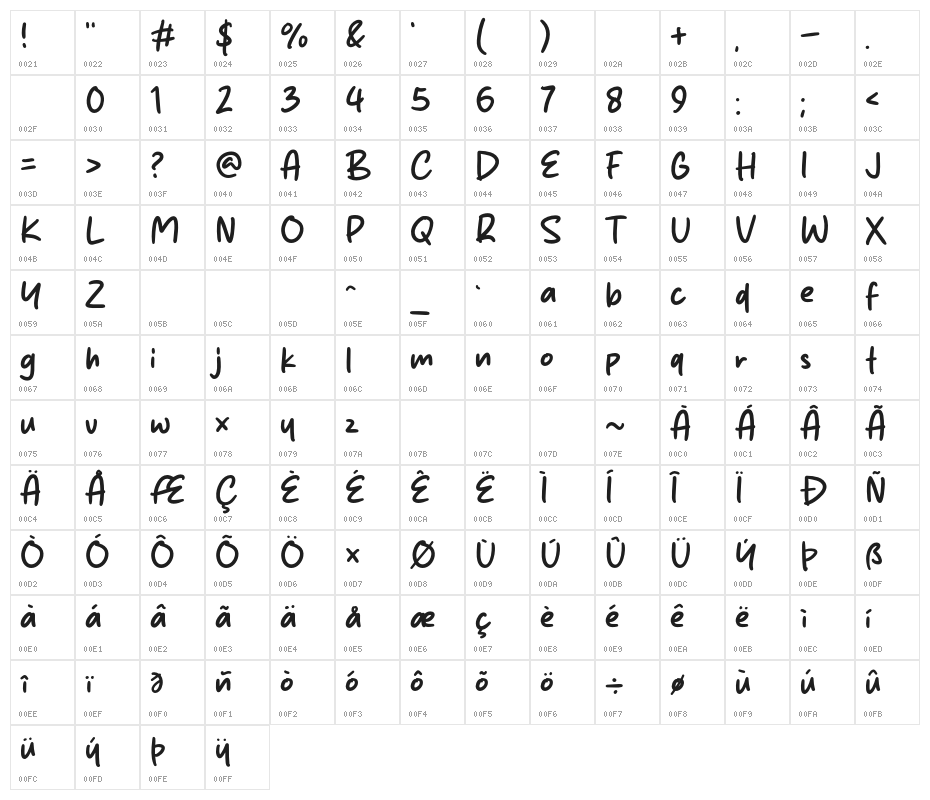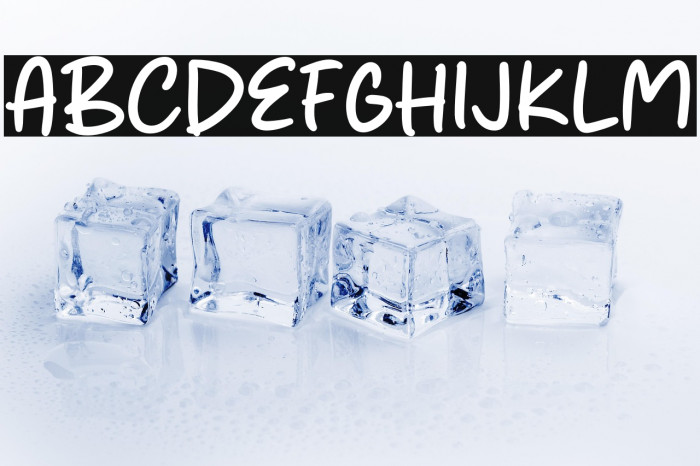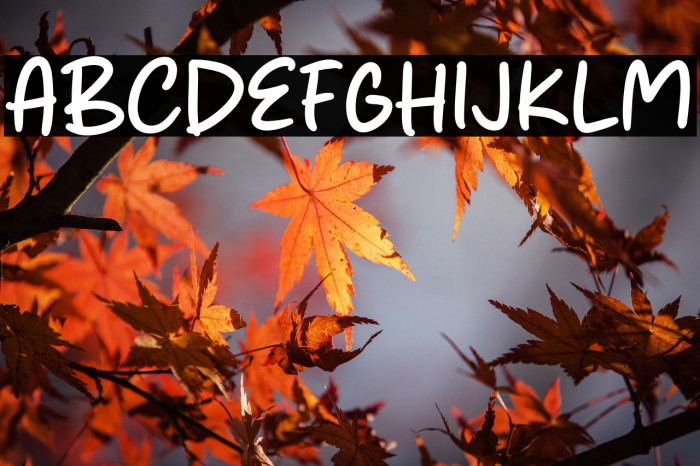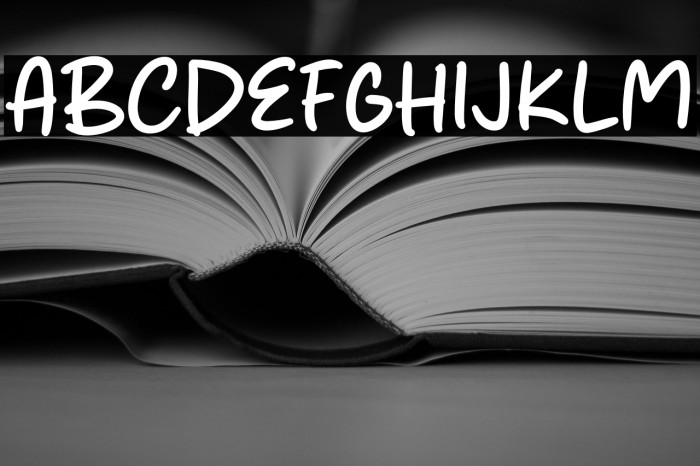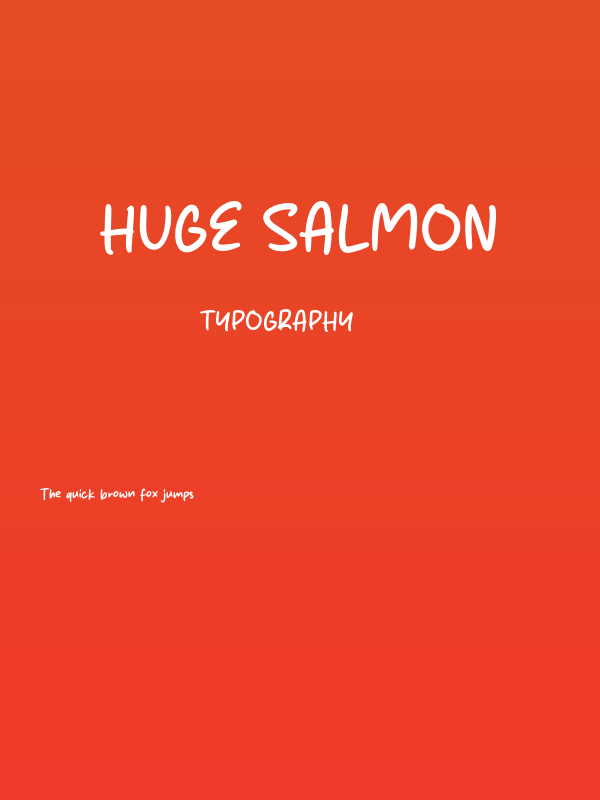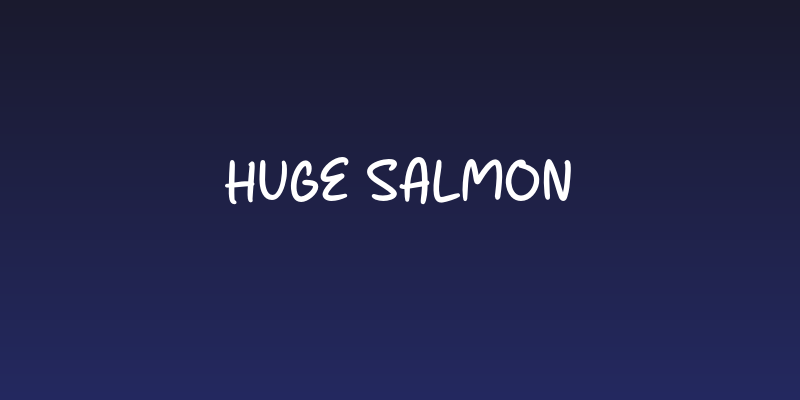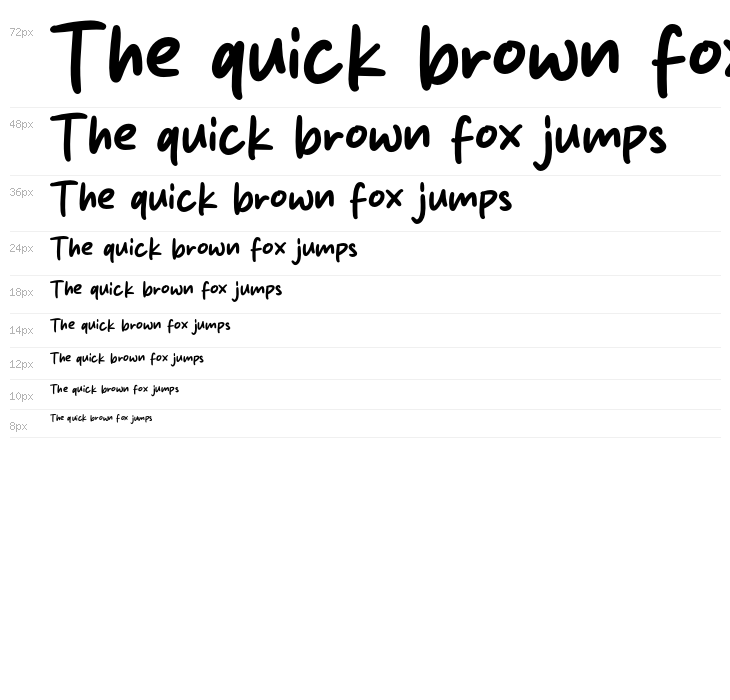
Huge Salmon Font
Huge Salmon Description
This font exudes a playful and casual vibe, characterized by its handwritten style that mimics natural penmanship. The letters are slightly slanted, giving it a dynamic and informal appearance. The strokes are consistent in width, providing a uniform look across all characters. The rounded edges and smooth curves contribute to its approachable and friendly feel. This font is versatile, suitable for projects that require a personal touch or a relaxed atmosphere. The numbers and special characters maintain the same handwritten aesthetic, ensuring cohesion throughout any text.
| Use Case | Headlines, Informal text, Personal projects |
| Proposed Projects | Ideal for greeting cards, personal blogs, informal invitations, and children's books. |